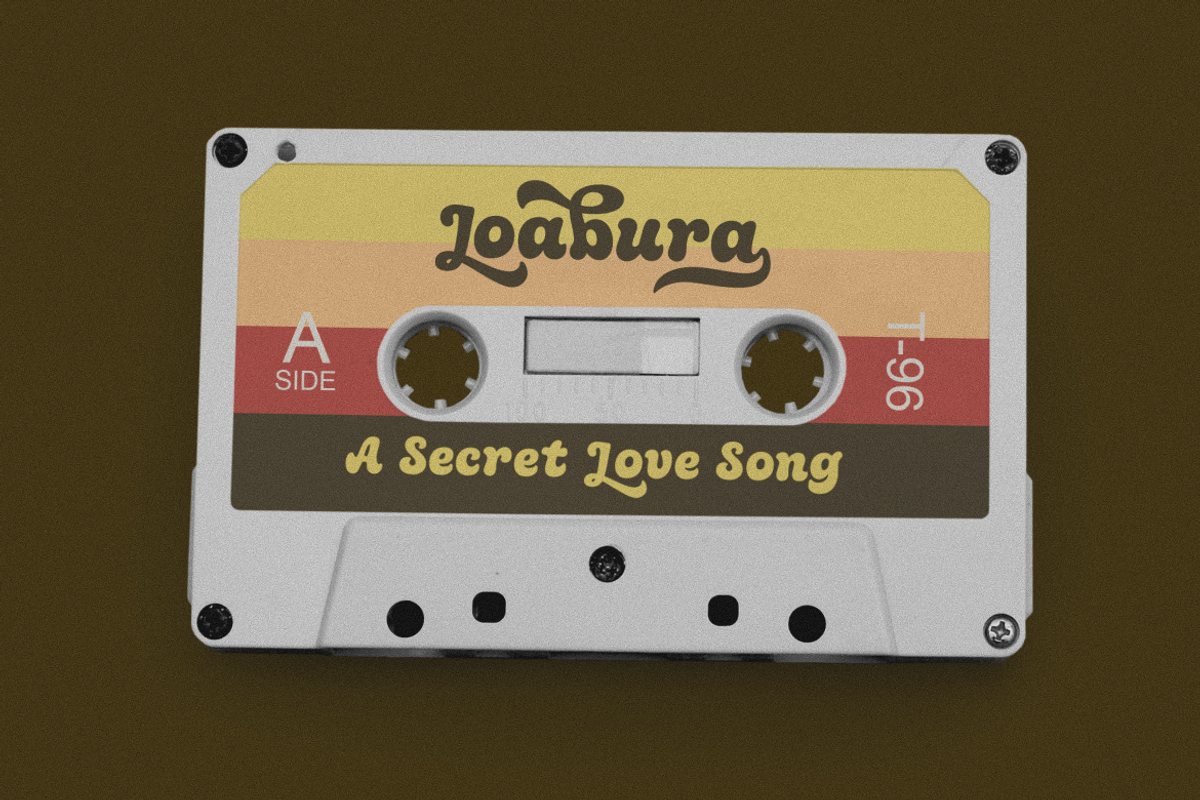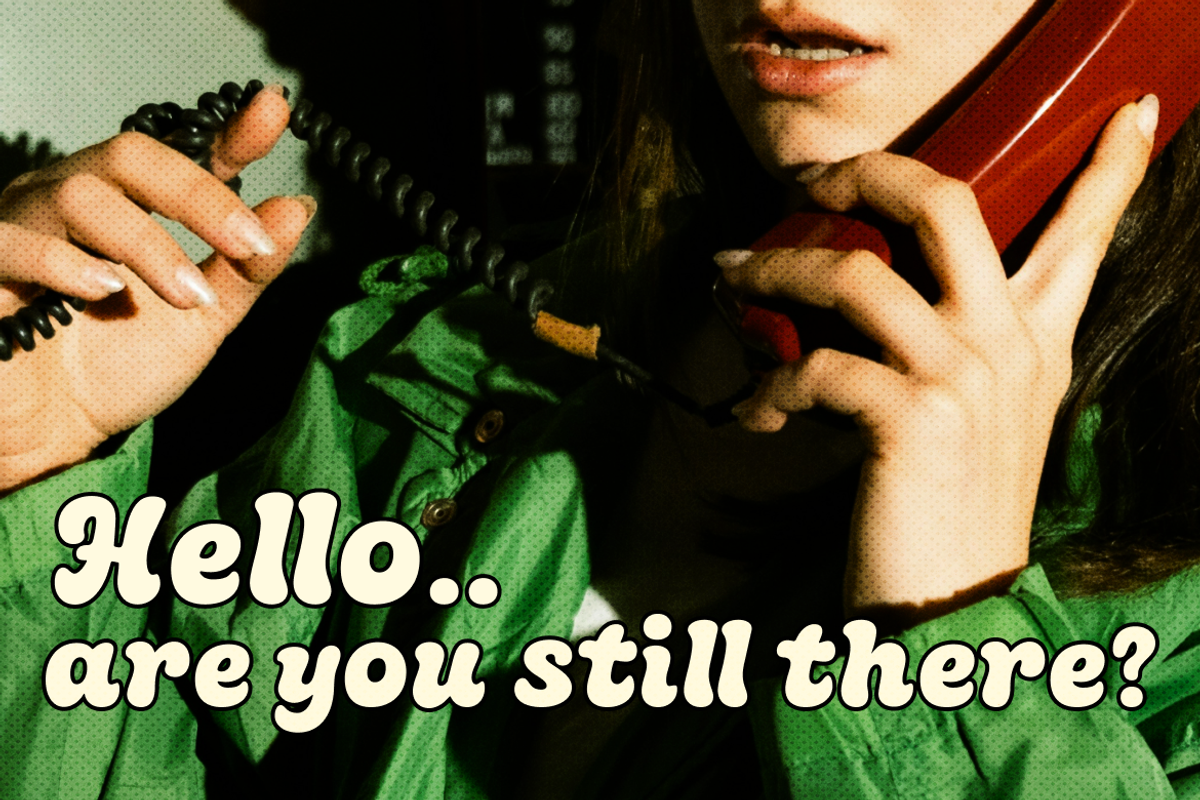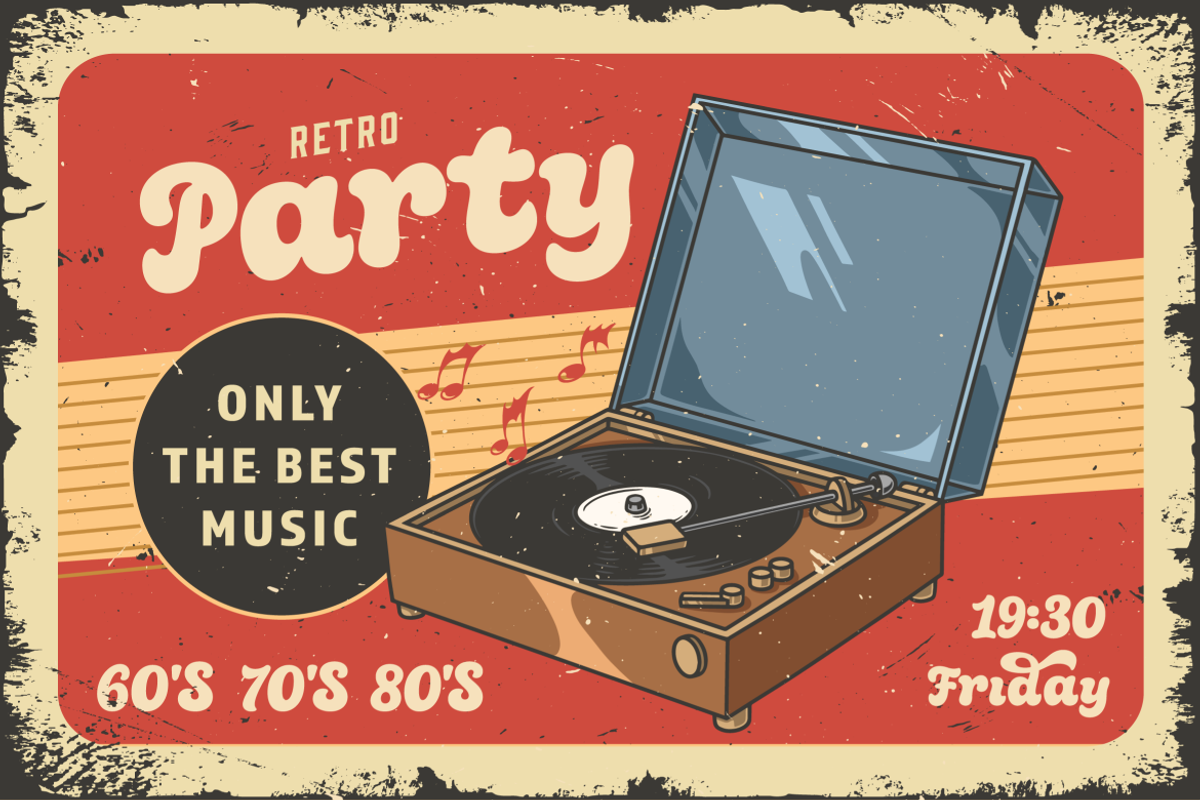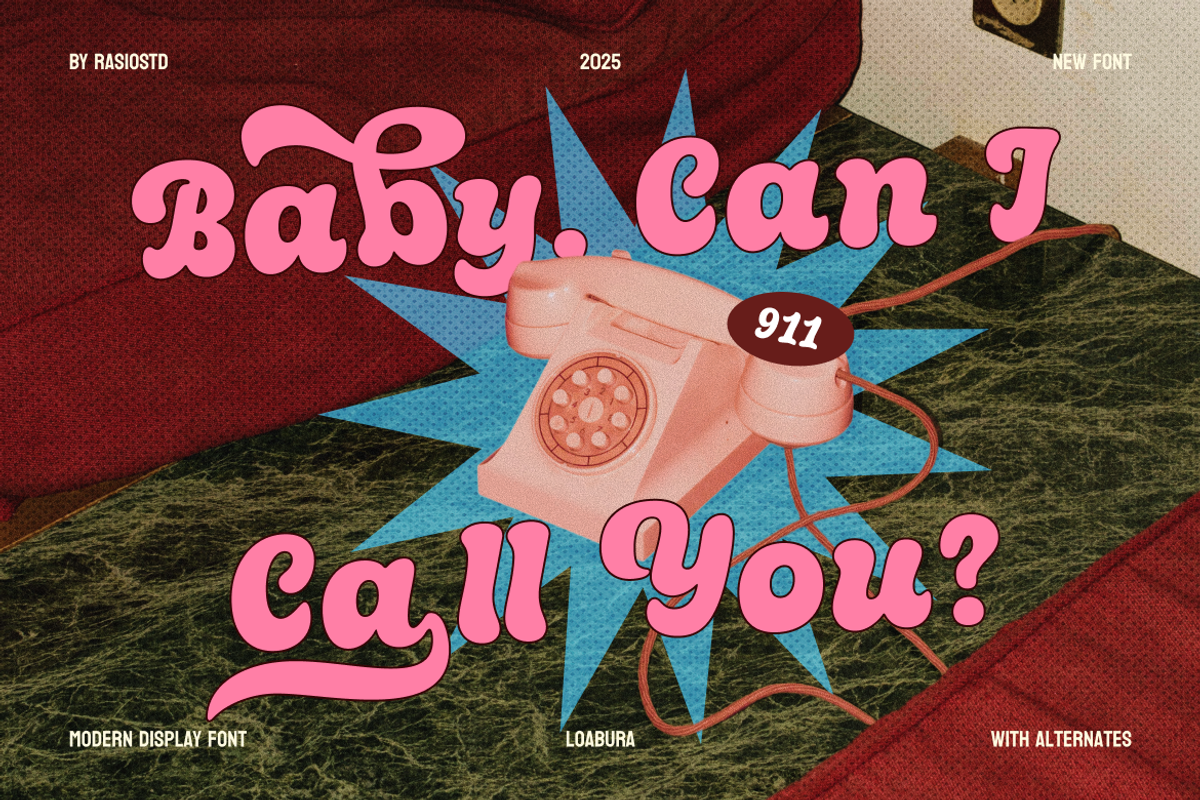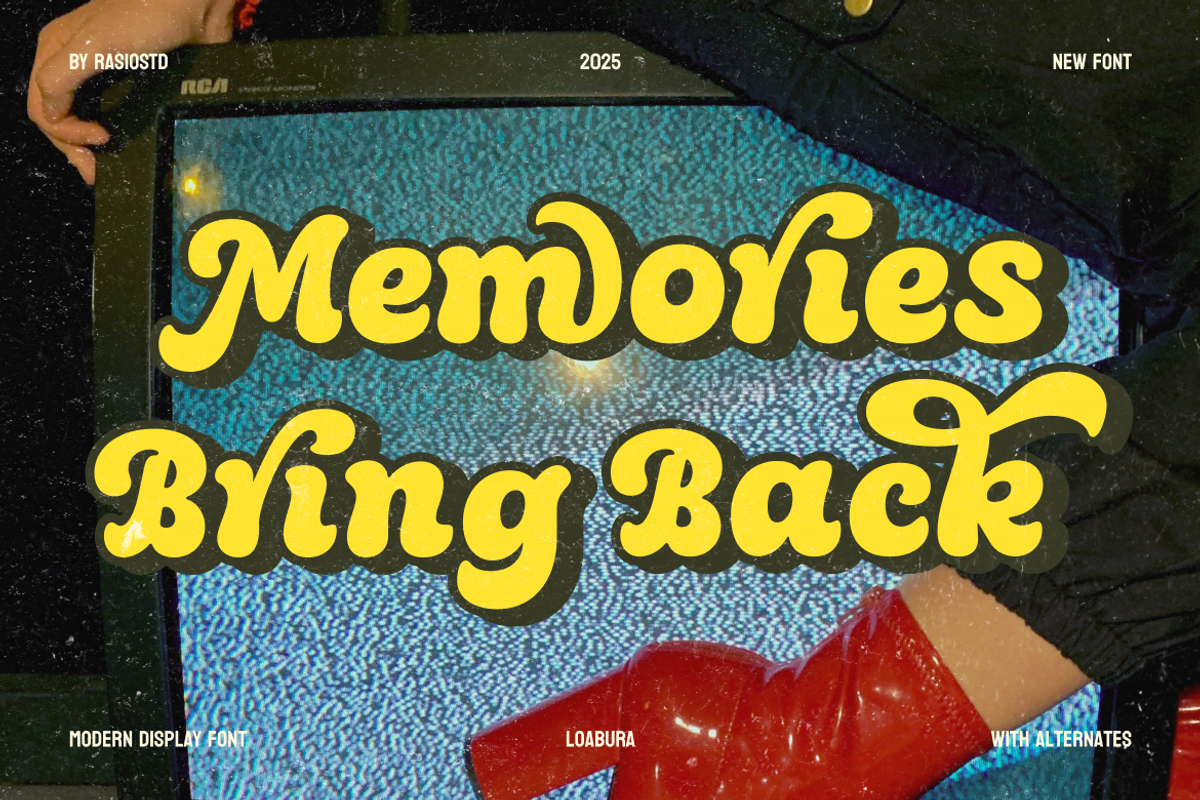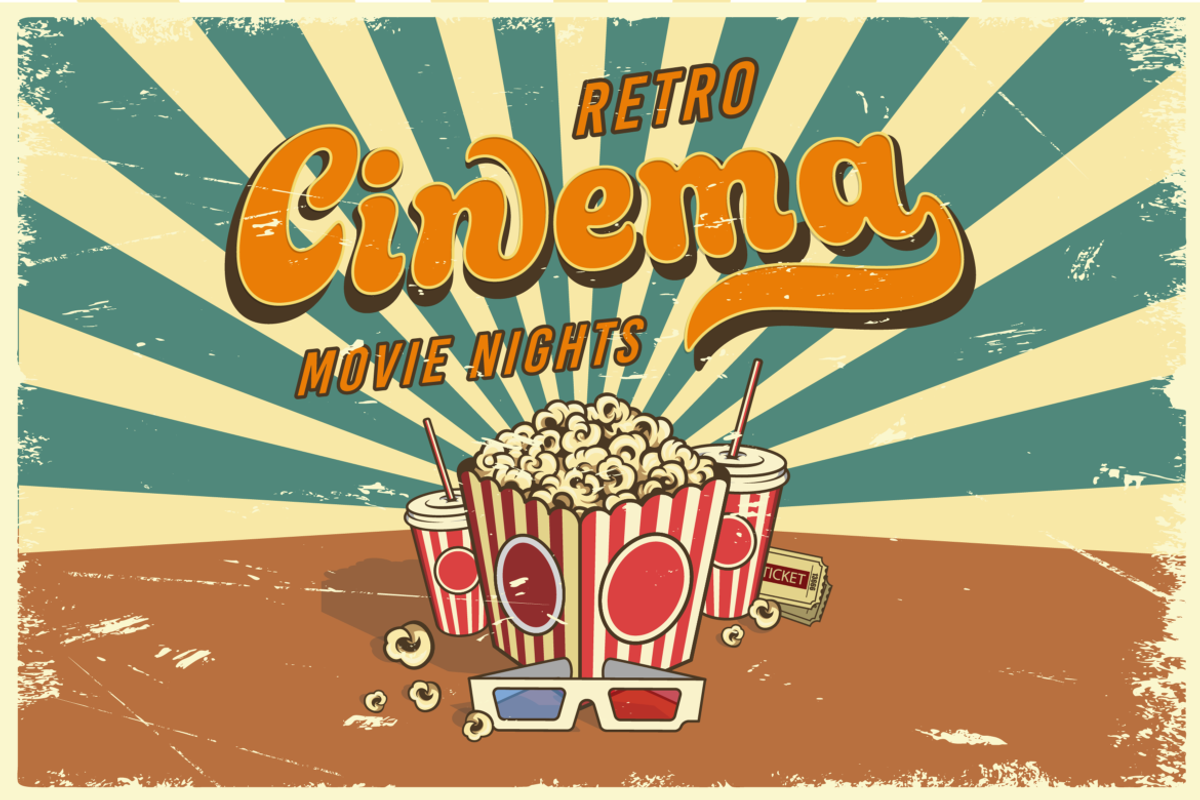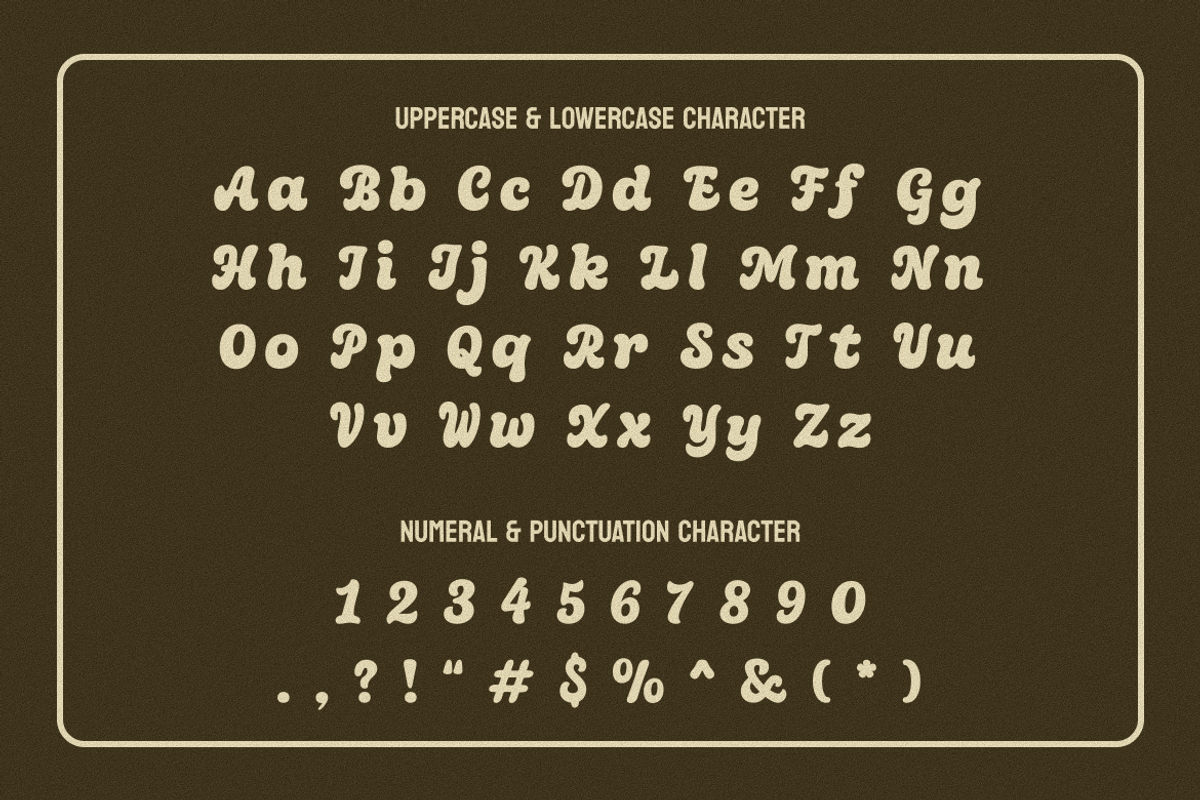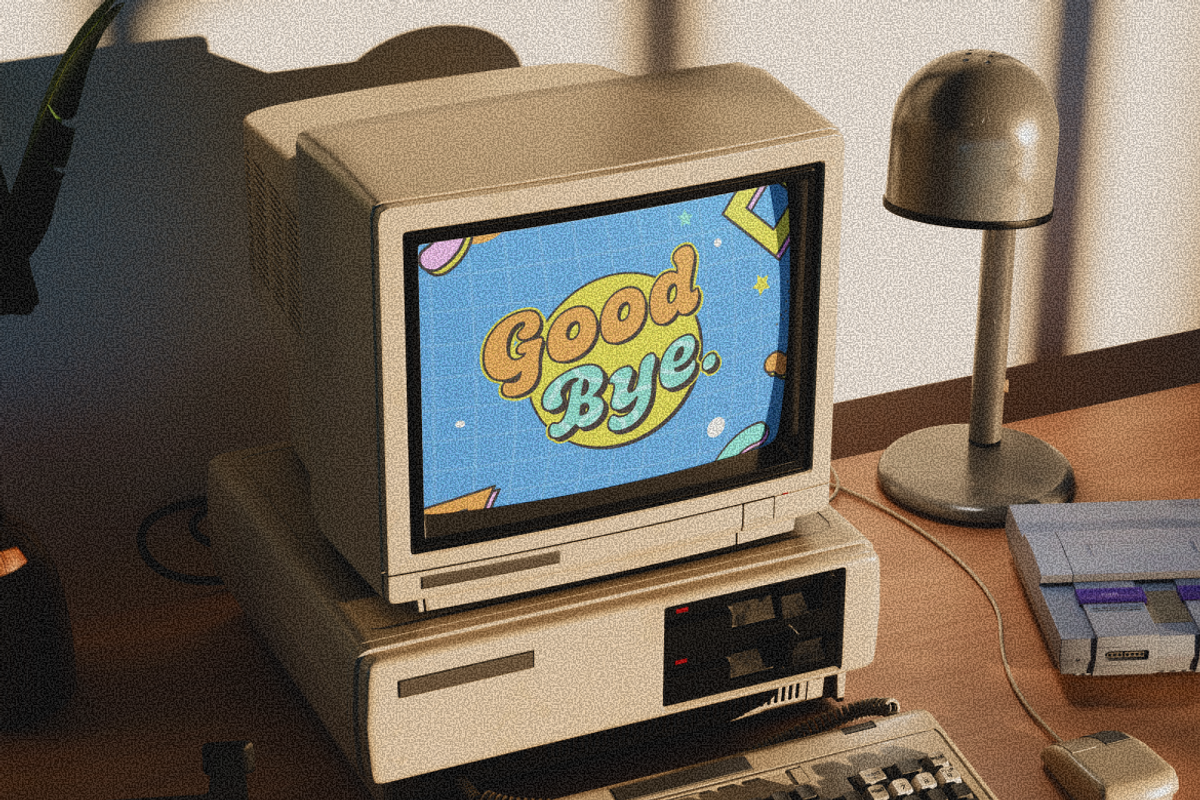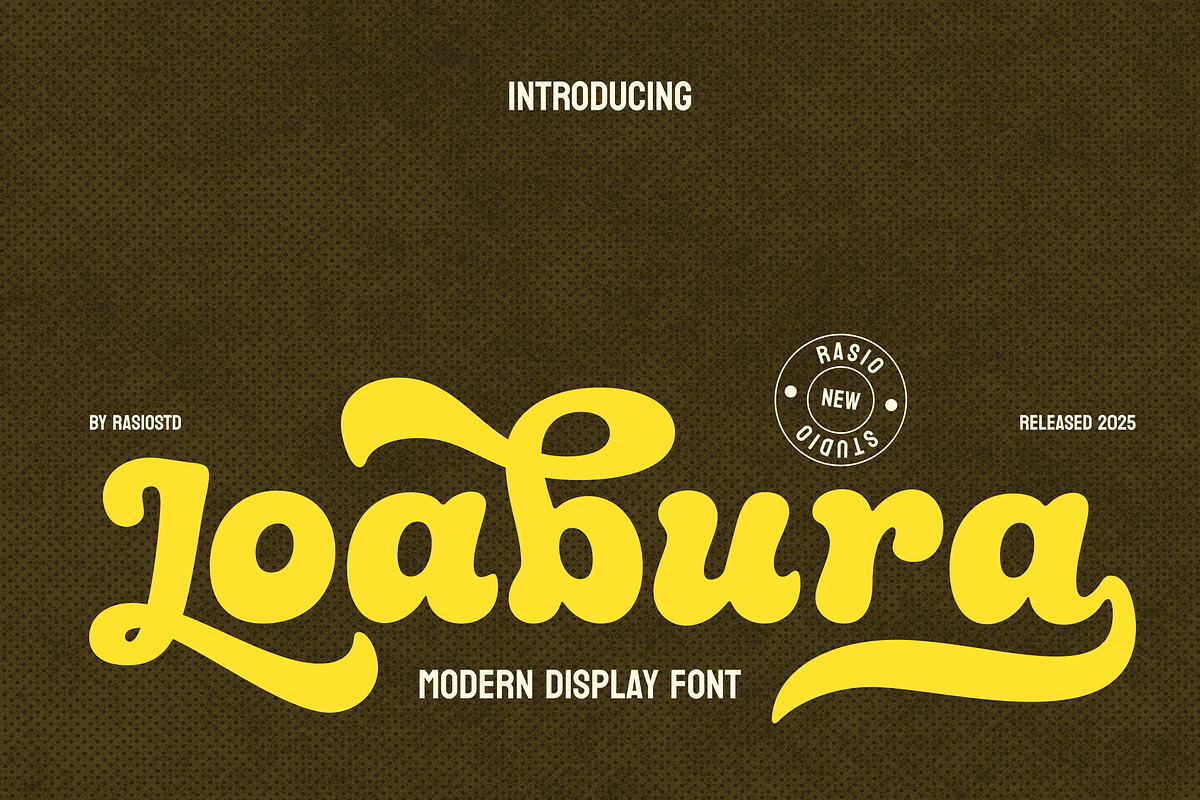
Loabura Modern Display Font
Loabura is a sweet and playful display typeface with bold rounded shapes and a soft bubbly personality. Its charming curves and lively stroke style bring a joyful character to any design, making it perfect for children’s branding, cheerful packaging, social media graphics, and creative merchandise. The unique bounce and quirky movement of each letter add a warm handcrafted feel. Comes with uppercase, lowercase, punctuation, multilingual support, and 240+ glyphs for expressive and flexible typography.
Relevance and Use Cases is perfect for kids branding, food & snack packaging, playful posters, cheerful social media content, cute merchandise design, cartoon illustration titles, lifestyle product labels, stationery design, and creative advertising.
- Retro-inspired display typeface with bold and groovy character shapes
- Soft, chunky letterforms with smooth curves and playful flow
- Distinctive swashes and dynamic terminals for expressive styling
- Slightly irregular proportions for a nostalgic and handcrafted feel
- Strong visual presence designed for impactful headlines and display use
- Retro-inspired branding with bold and nostalgic character
- Logo designs with groovy and expressive personality
- Vintage-style posters, music artwork, and event graphics
- Product packaging with eye-catching and playful appeal
- Social media content with bold, fun, and standout visuals
- Merchandise designs such as t-shirts, stickers, and lifestyle branding
Make your design pop with a bold, groovy style with Loabura